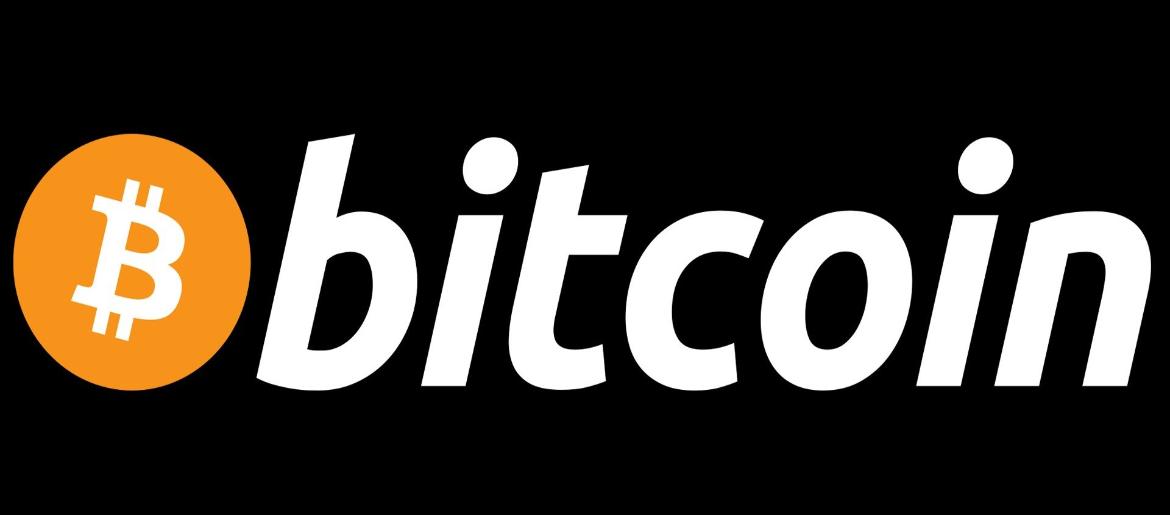
Bitcoin Font
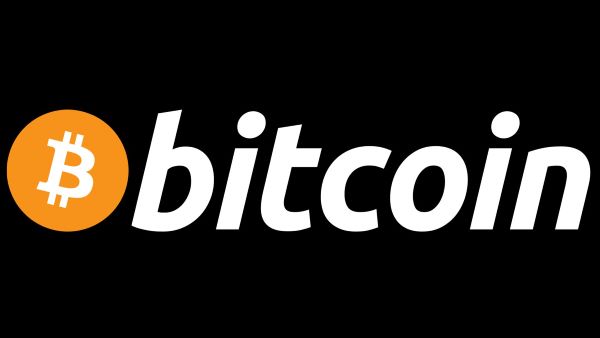
What is The Bitcoin Font?
The Bitcoin Font is Ubuntu Bold 700 Italic, the typeface used in the Bitcoin logo and branding. It is a modern sans-serif font with rounded shapes, strong weight, and a forward-leaning italic style, giving the Bitcoin wordmark a dynamic, technological, and progressive feel. The bold, slanted lettering reinforces Bitcoin’s image as a fast-moving, innovative digital currency.
About Bitcoin
Bitcoin is widely seen as the first and most influential cryptocurrency, shaping the entire crypto industry. Its bold, recognizable logo and modern typography reflect its role as a revolutionary financial technology that continues to change how people think about money and digital ownership.